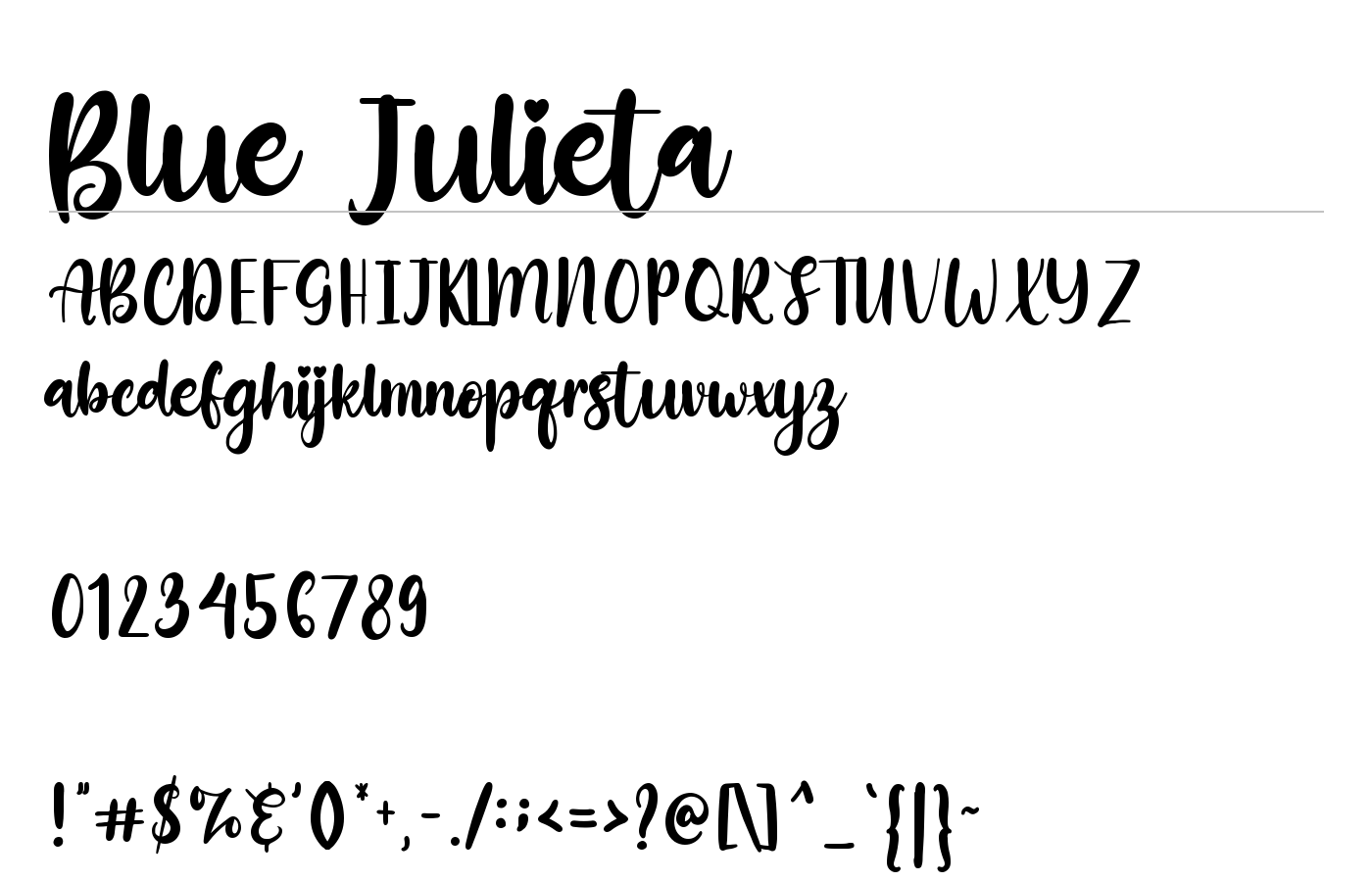
Blue Julieta is a playful and charming script font with a friendly, handwritten feel. Its smooth, rounded strokes and whimsical details, like the heart-shaped dot on the "i," give it a casual yet stylish personality that works beautifully for branding, invitations, and creative projects looking for warmth and approachability. This font stands out in headlines and logos where a personal, fun touch is desired.
About Blue Julieta Font